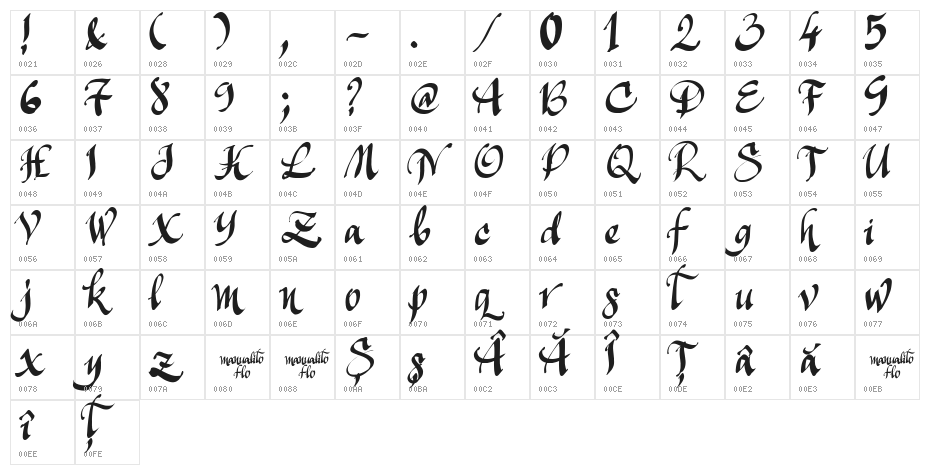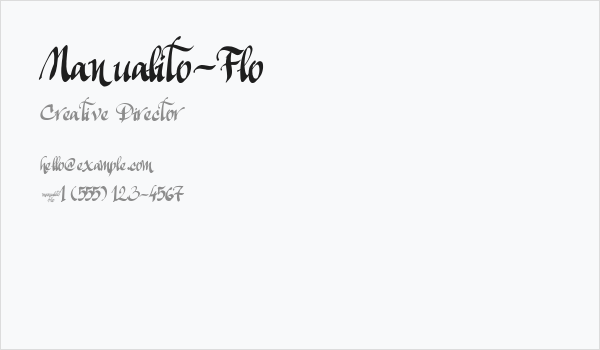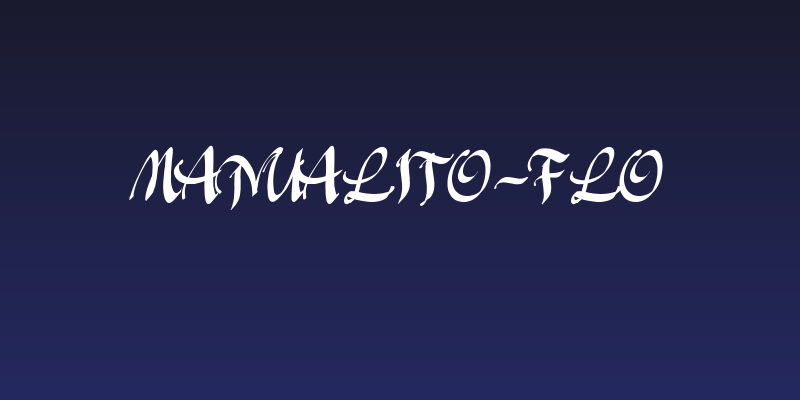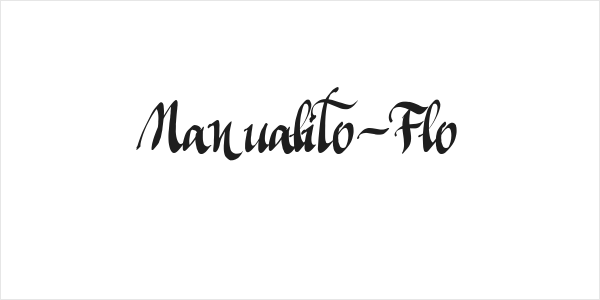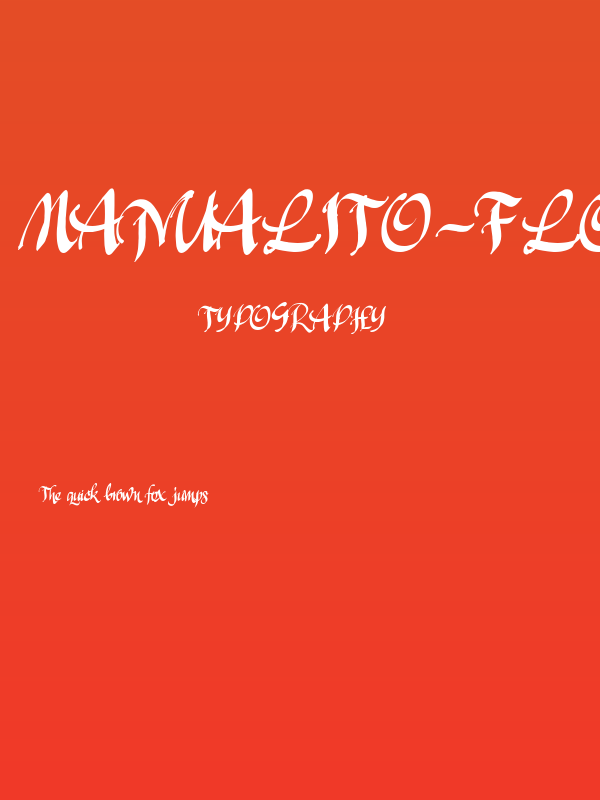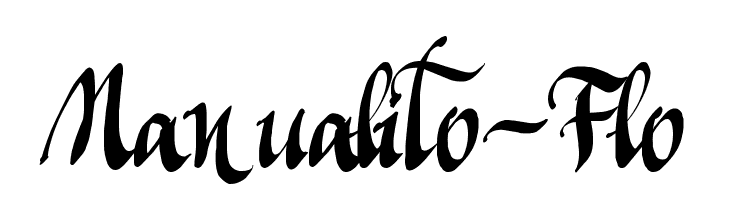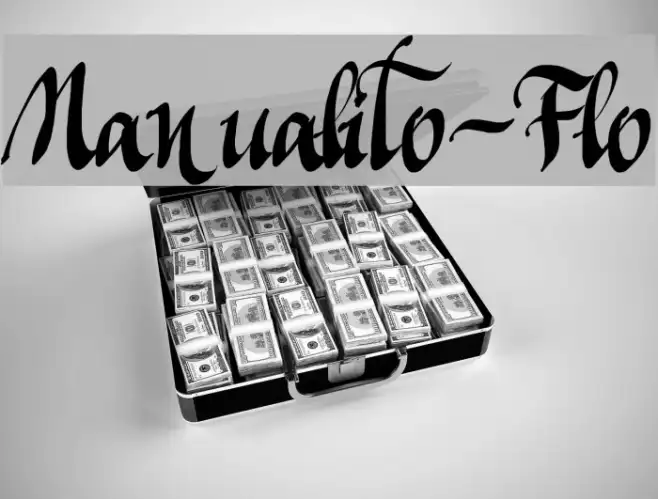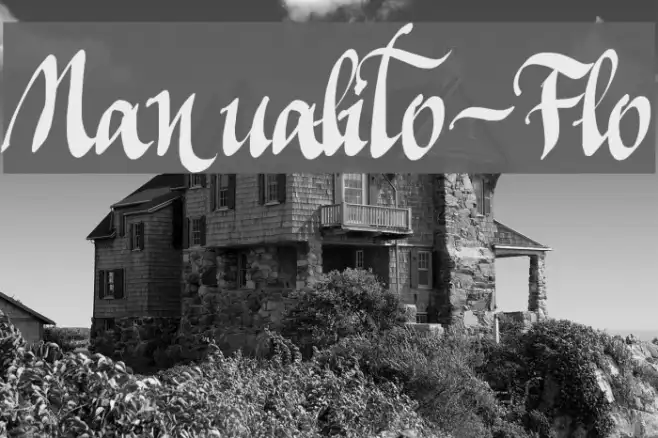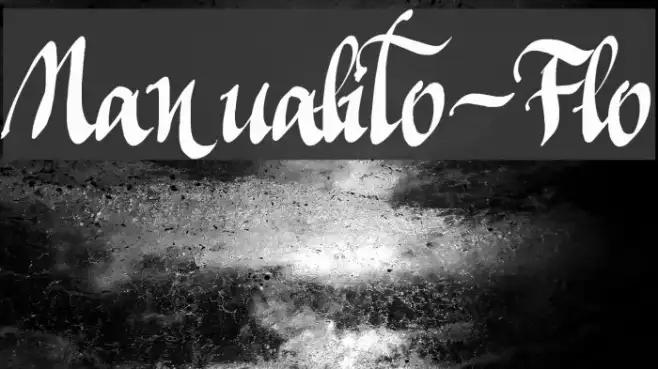
Manualito-Flo Font
Manualito-Flo Description
This font exhibits a dynamic and flowing script style, characterized by its elegant and fluid strokes. The uppercase letters are bold and dramatic, with sweeping curves and flourishes that give a sense of movement and grace. The lowercase letters maintain a consistent style, with a slightly more compact form that complements the uppercase. The numerals are distinct and maintain the same flowing style, ensuring readability while retaining the font's artistic flair. Special characters are integrated seamlessly, adding to the font's versatility. The overall appearance is reminiscent of calligraphic handwriting, making it suitable for projects that require a touch of sophistication and elegance.
| Proposed Projects | Ideal for wedding invitations, elegant branding, artistic posters, and decorative headings. |